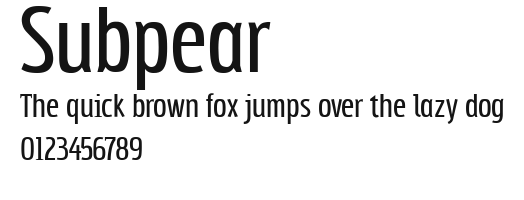
• Font Name: Subpear
• Designer: Ray Larabie
About Subpear.ttf
Subpear.ttf is a modern, elegant sans-serif font designed for ultimate readability and visual harmony. Perfect for branding, headlines, web design, and print materials.